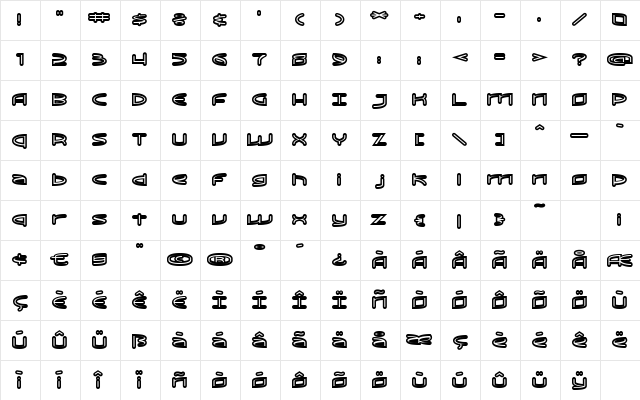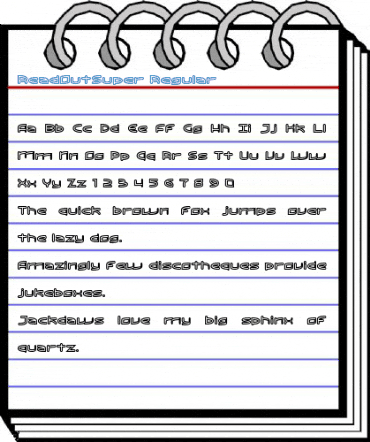
ReadOutSuper Medium Free Font
ReadOutSuper Medium
Style: Medium
Complete ReadOutSuper Medium glyph index. Displaying only characters natively supported by ReadOutSuper Medium font.
Design Context for ReadOutSuper
ReadOutSuper is a composed and adaptable typeface that performs quietly and consistently across a wide range of design contexts.